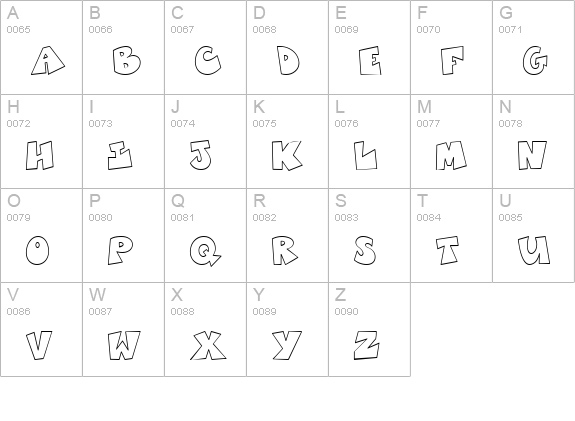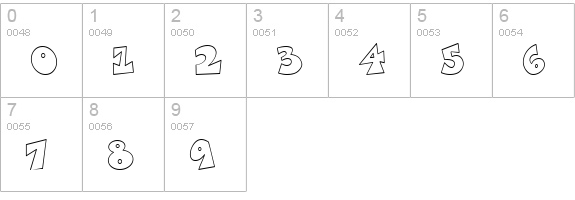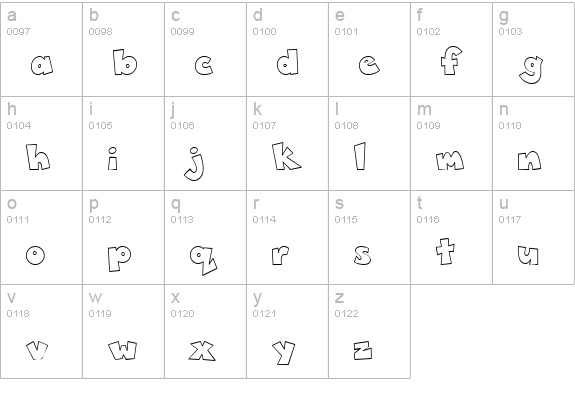
Ck Blockhead Font Details
Ck Blockhead is a whimsical and playful font that exudes charm and character. Its bold and chunky letterforms make a strong impact, perfect for adding a touch of fun to your designs. This font is versatile and works well in a variety of contexts, from branding to posters to social media graphics. And the best part? Ck Blockhead is completely free to download at FontsMarket.com. So go ahead and give your projects a unique and quirky twist with this fantastic font. Let your creativity run wild with Ck Blockhead!